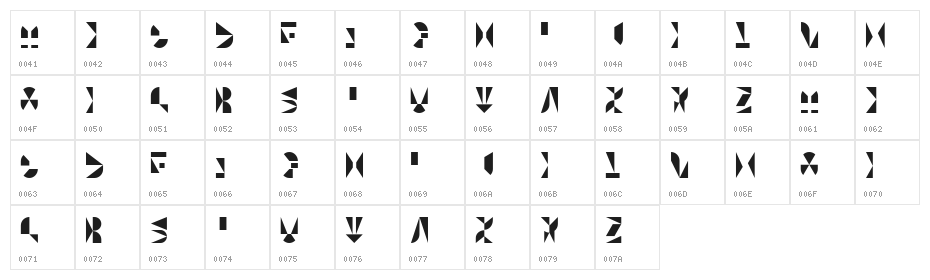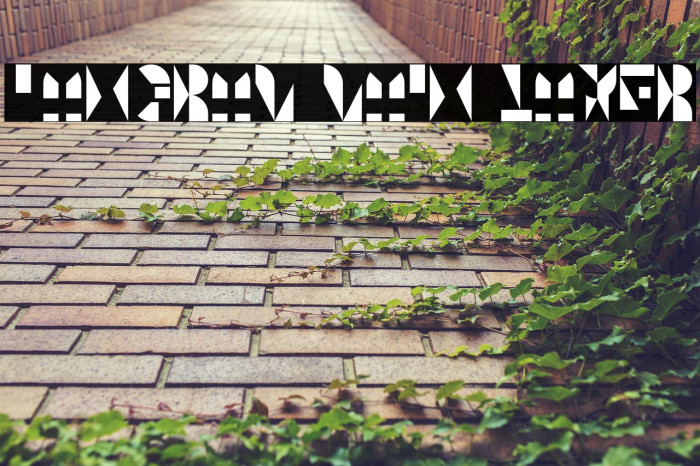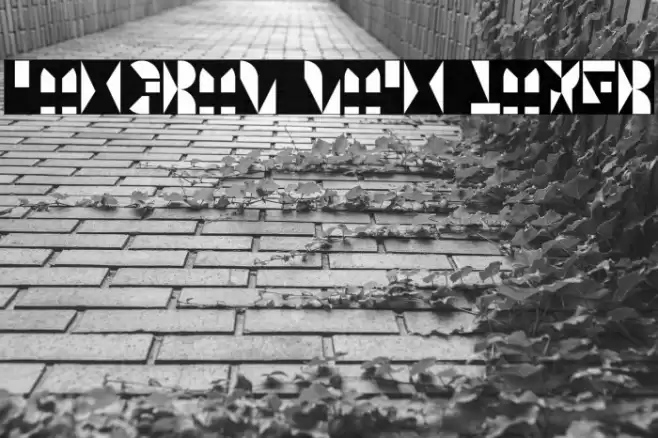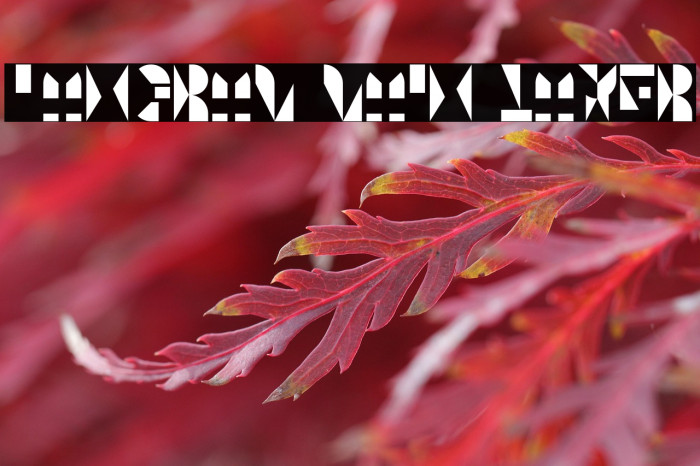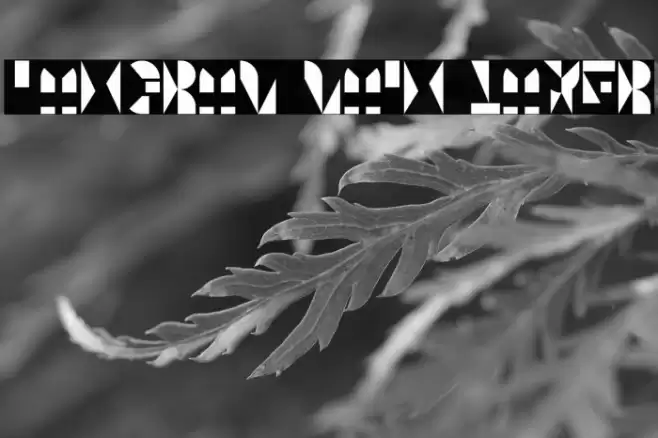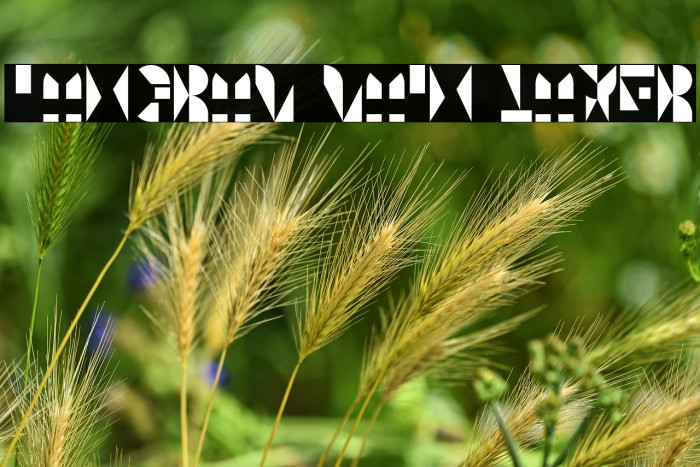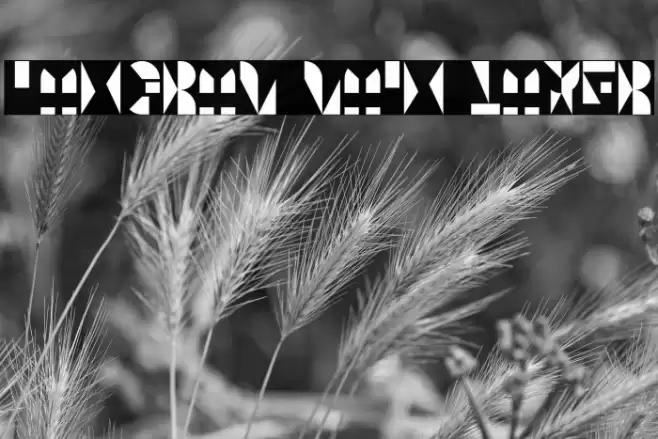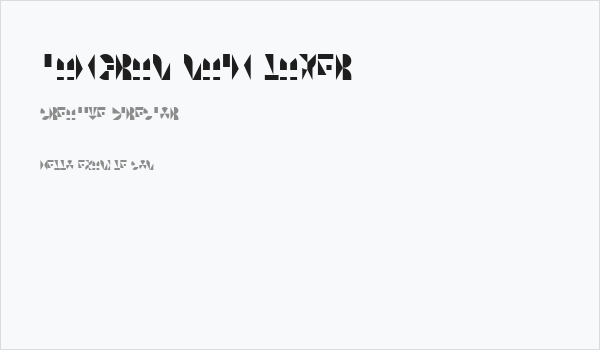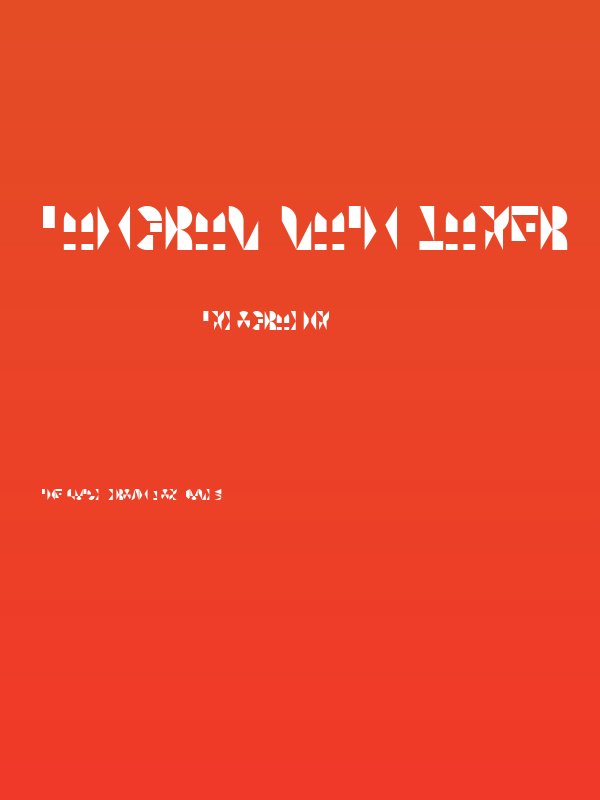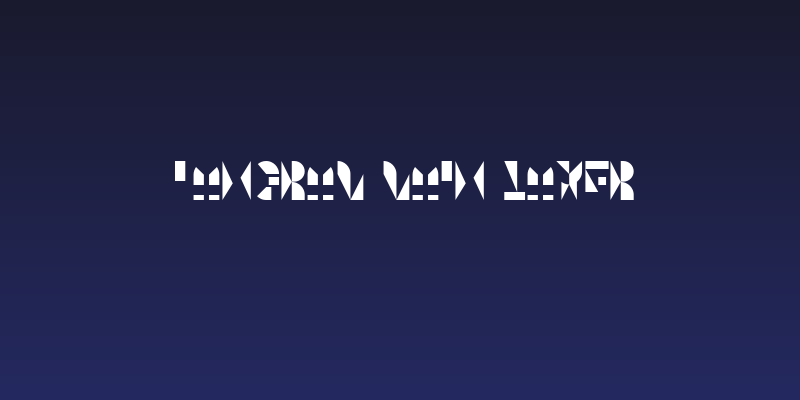
Tangram Main Layer Font
Tangram Main Layer Description
This font is a highly stylized and geometric typeface, reminiscent of tangram puzzles. Each character is constructed using a combination of angular shapes and sharp edges, creating a unique and abstract appearance. The design is bold and striking, with a strong emphasis on symmetry and balance. The characters are composed of triangles, squares, and other polygonal forms, giving the font a modern and artistic flair. This typeface is not intended for readability in body text but rather for decorative purposes, where its distinctive style can be showcased.
| Use Case | Logos, Posters, Art Projects |
| Proposed Projects | Ideal for artistic projects, modern art installations, branding for creative industries, or any design work that requires a bold, abstract aesthetic. |